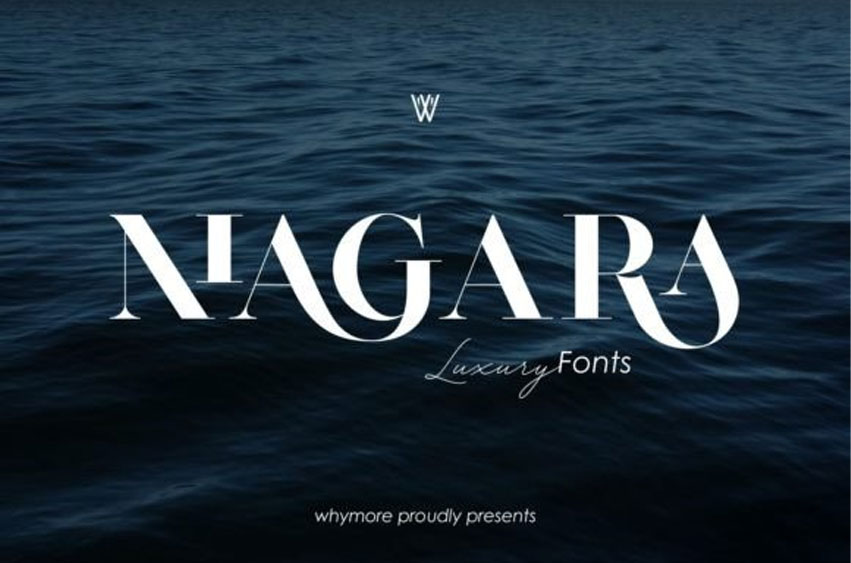
Niagara Font
Niagara Font With its unique and graceful curves and the impression of a thinly defined serif, this typeface can evoke a sense of beauty with classy elegance and luxury.
Whether used for branding, logos, business cards, social media templates, or Niagara adds a touch of glamor to any project.